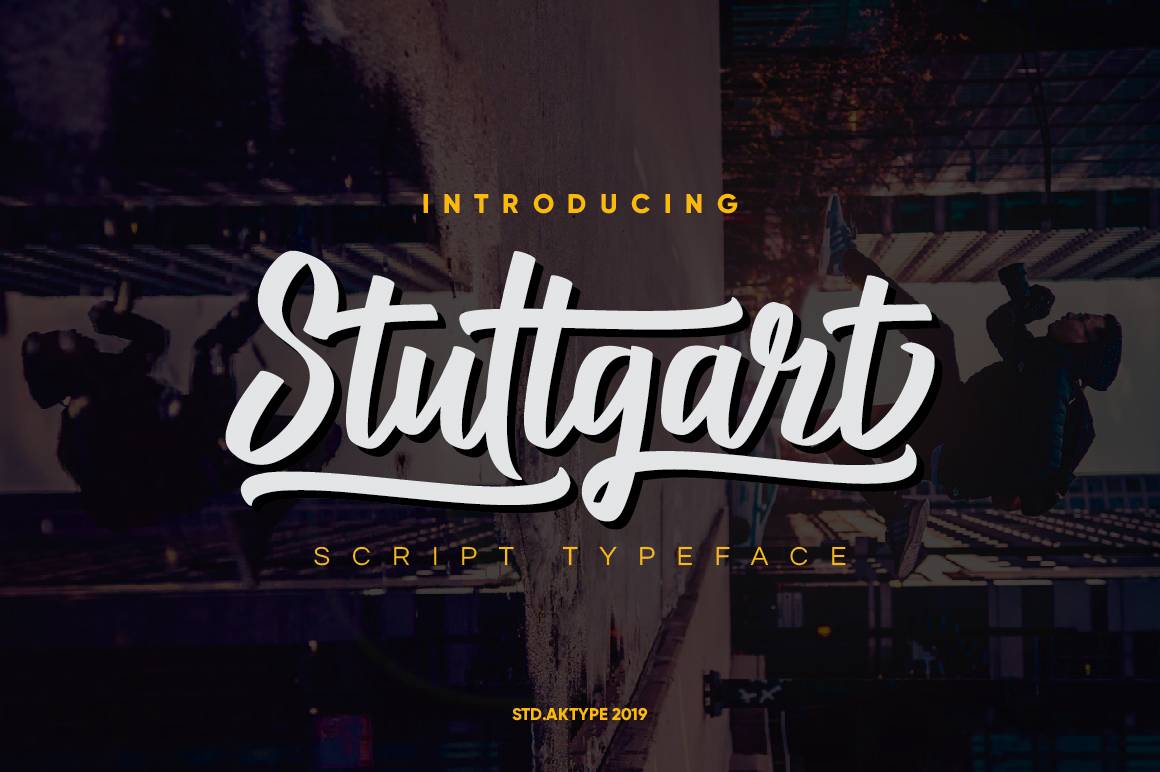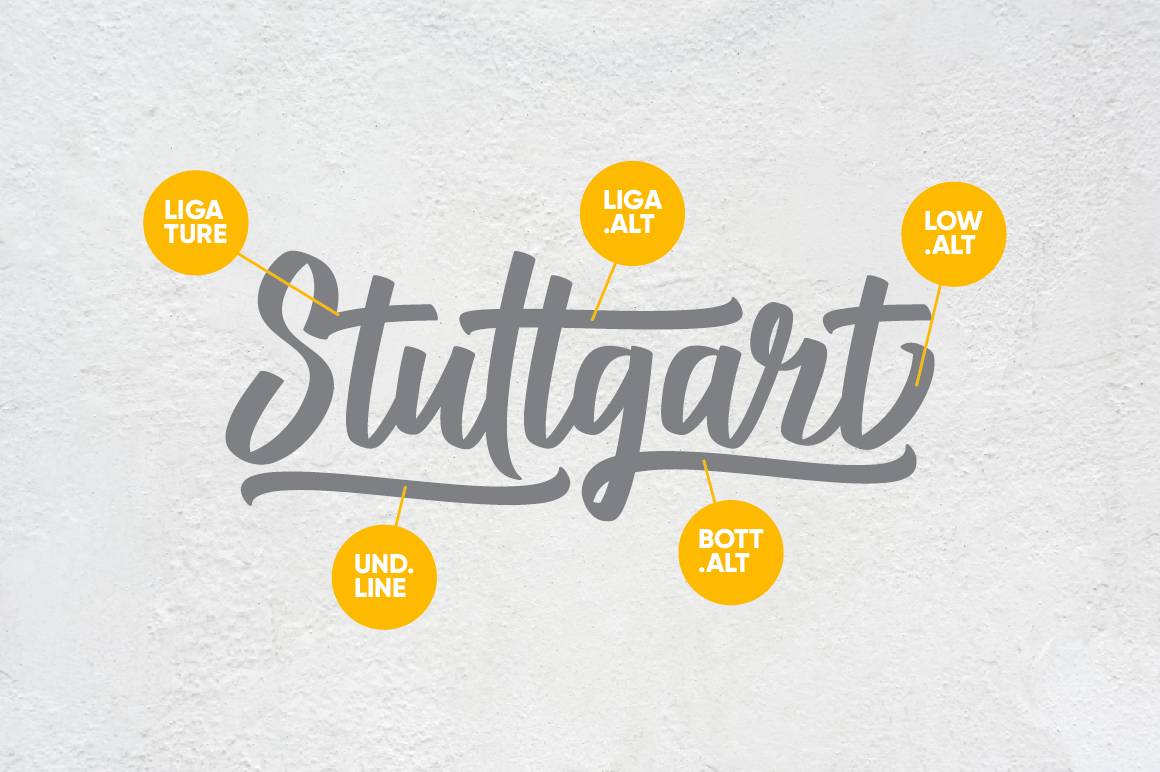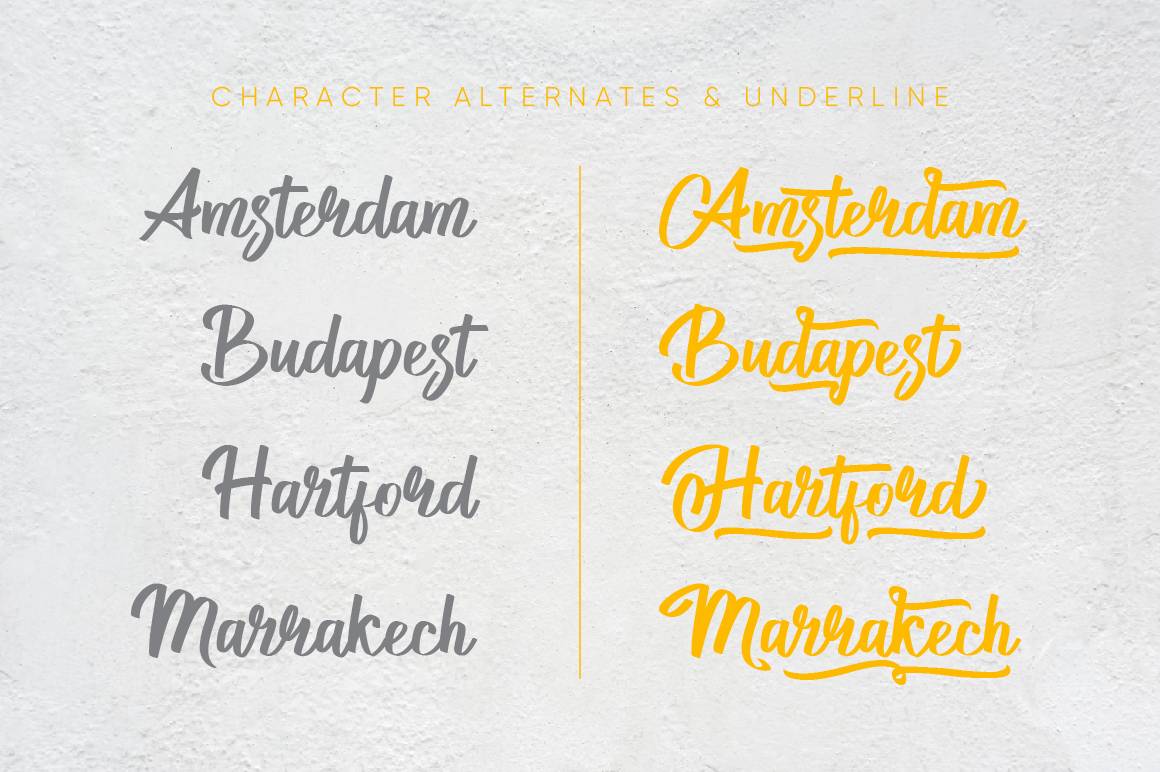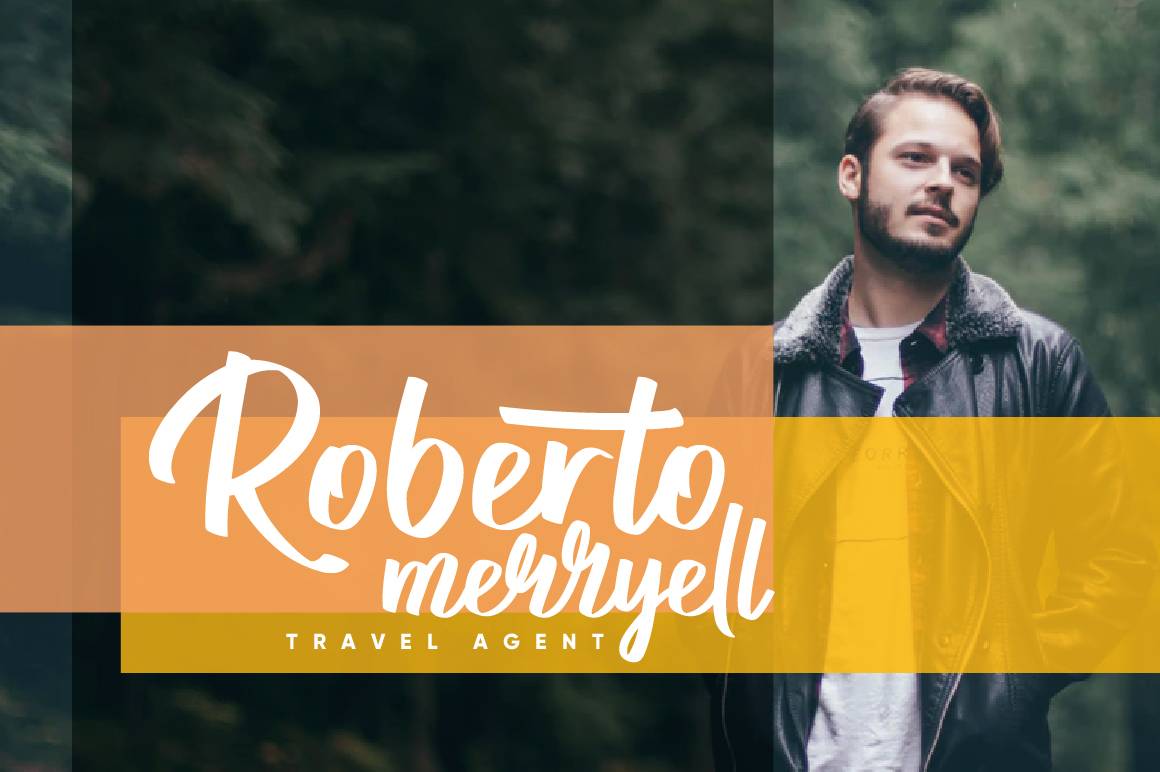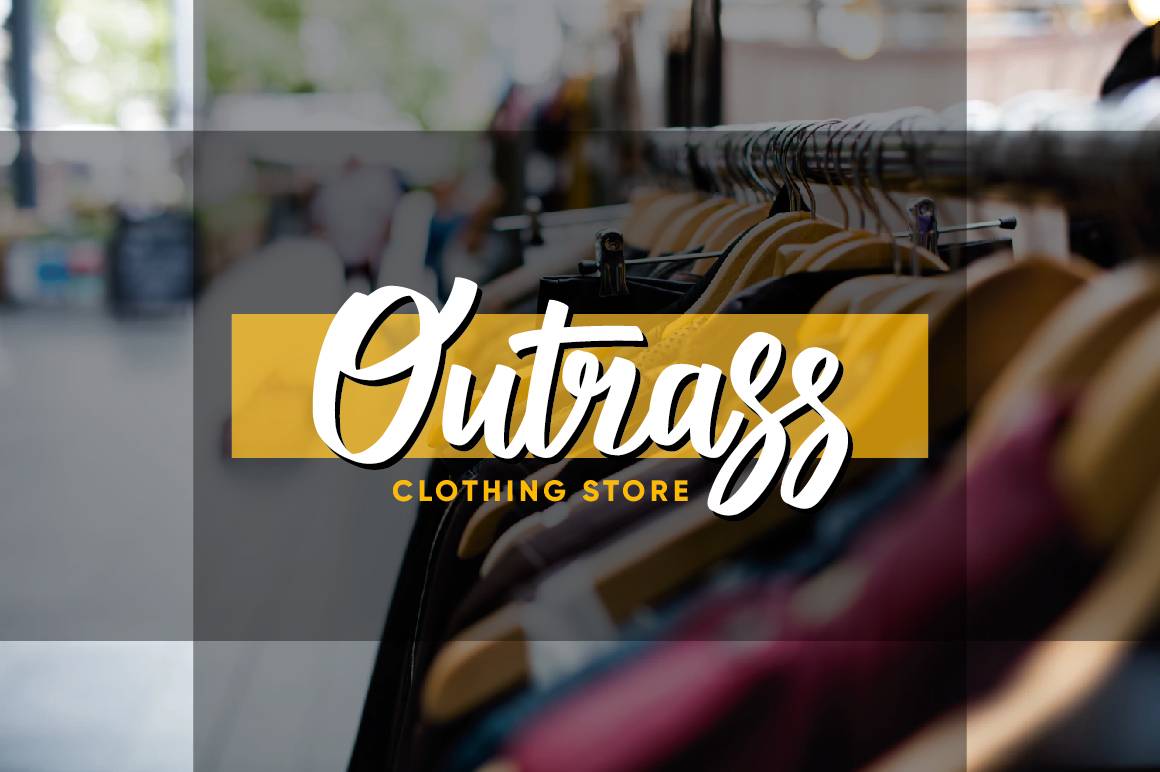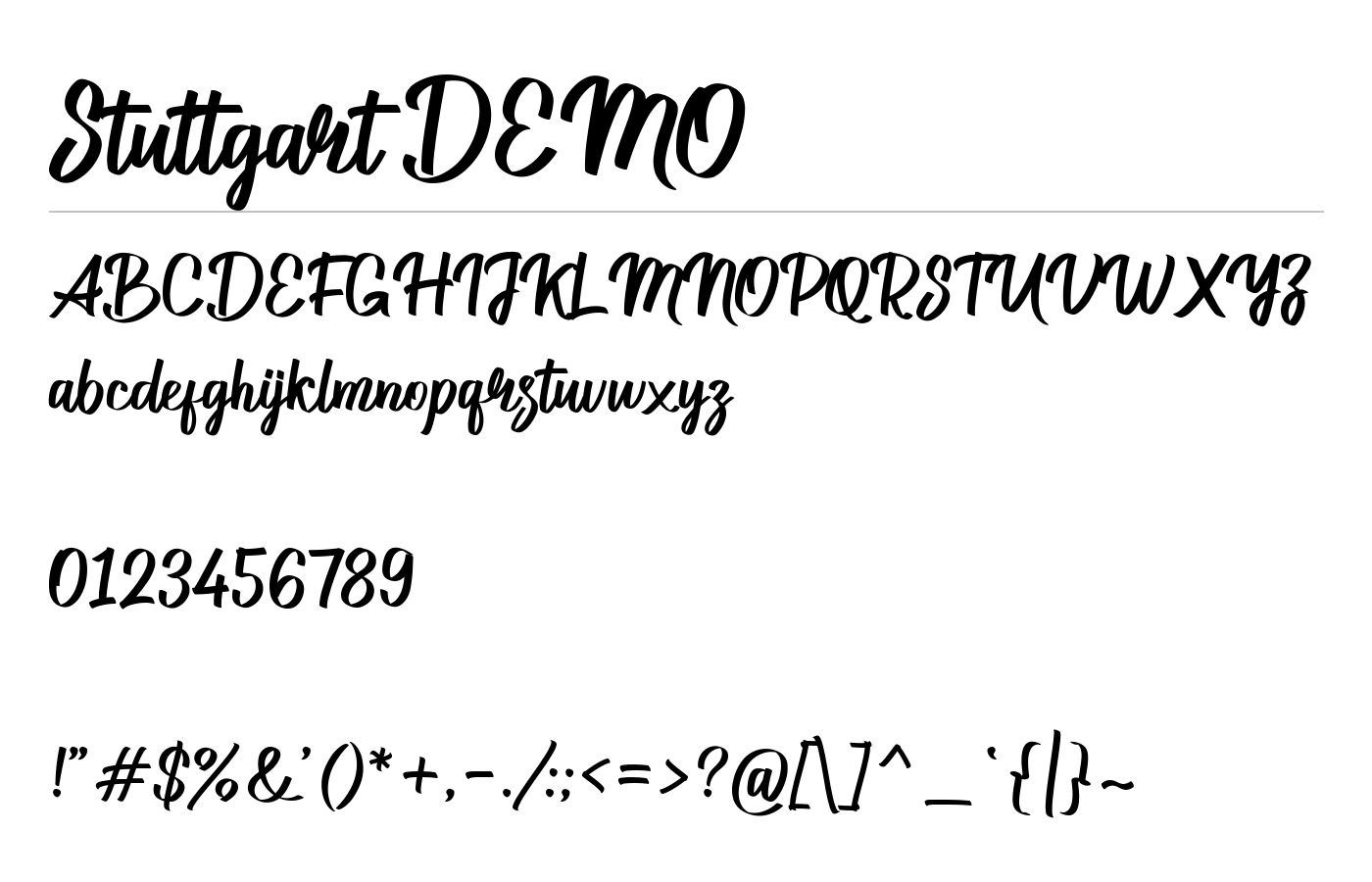
Stuttgart Script is a lively and modern script font characterized by its bold weight and smooth, flowing strokes that create an inviting handwritten feel. With its upright, slightly condensed letterforms and medium contrast, it combines elegance with readability, making it ideal for branding, logos, invitations, and stylish headlines. This font's playful yet sophisticated personality works well for fashion, creative projects, and any design that aims to convey warmth and charm.
Stuttgart Script Font